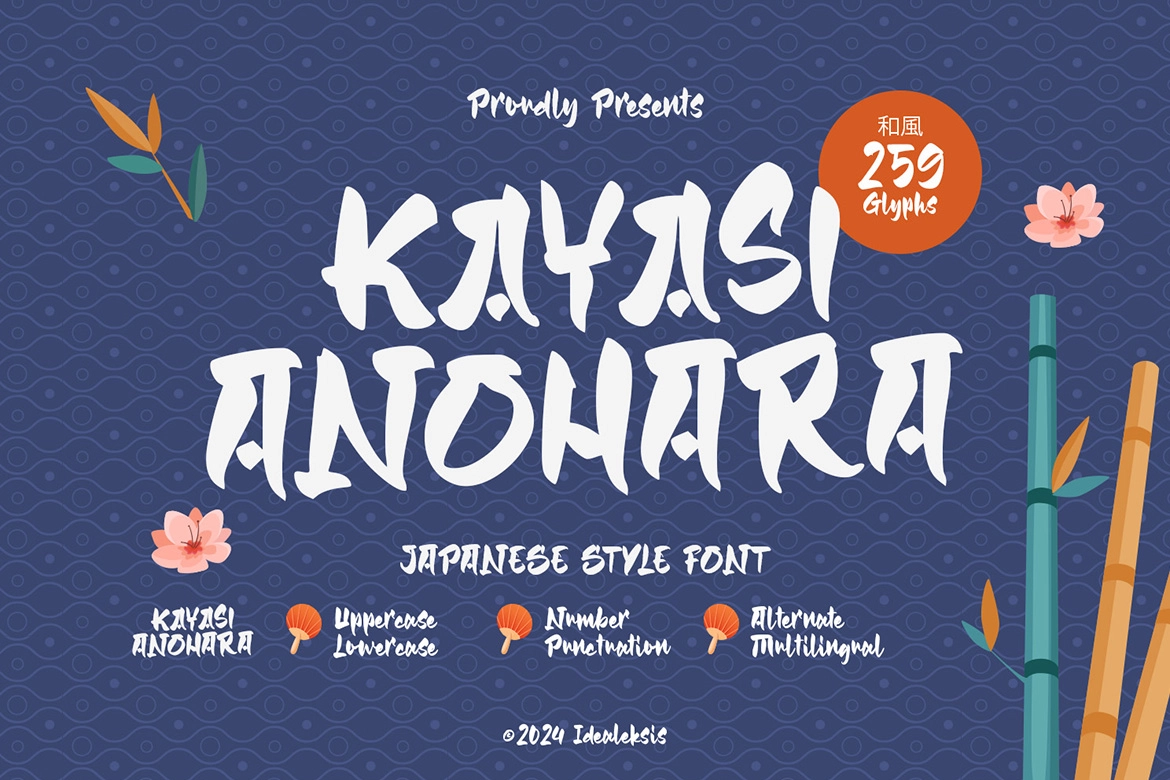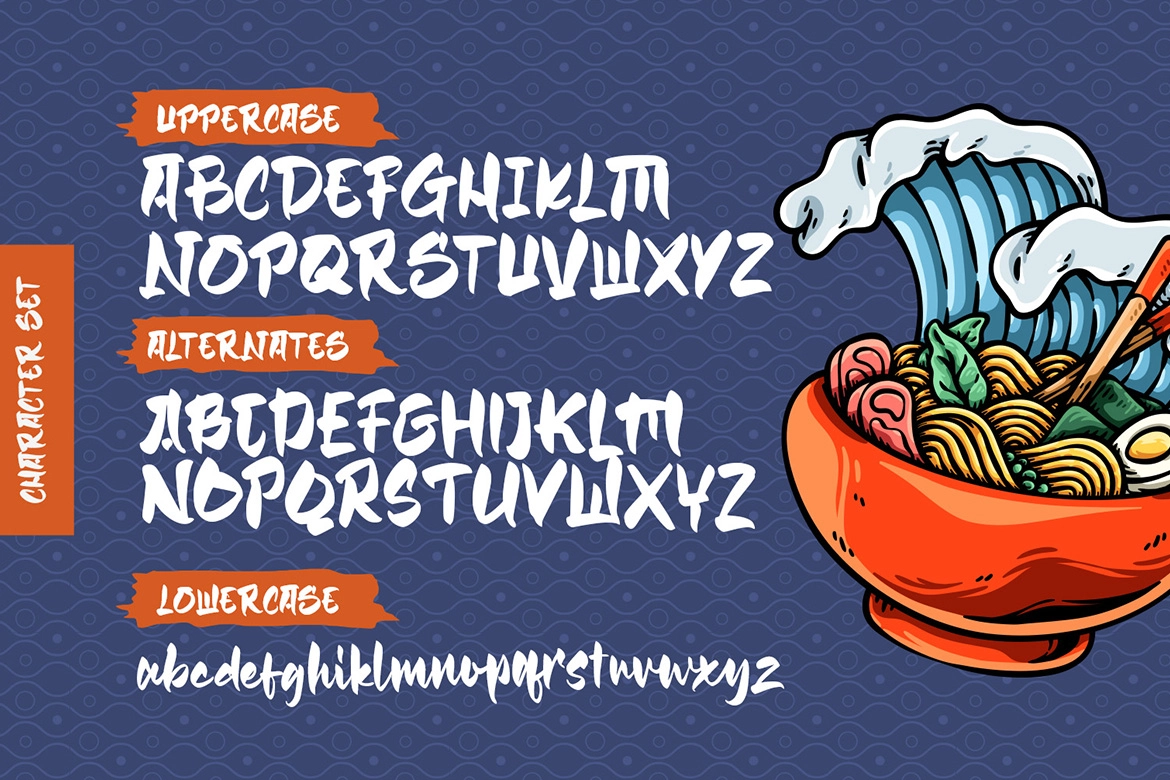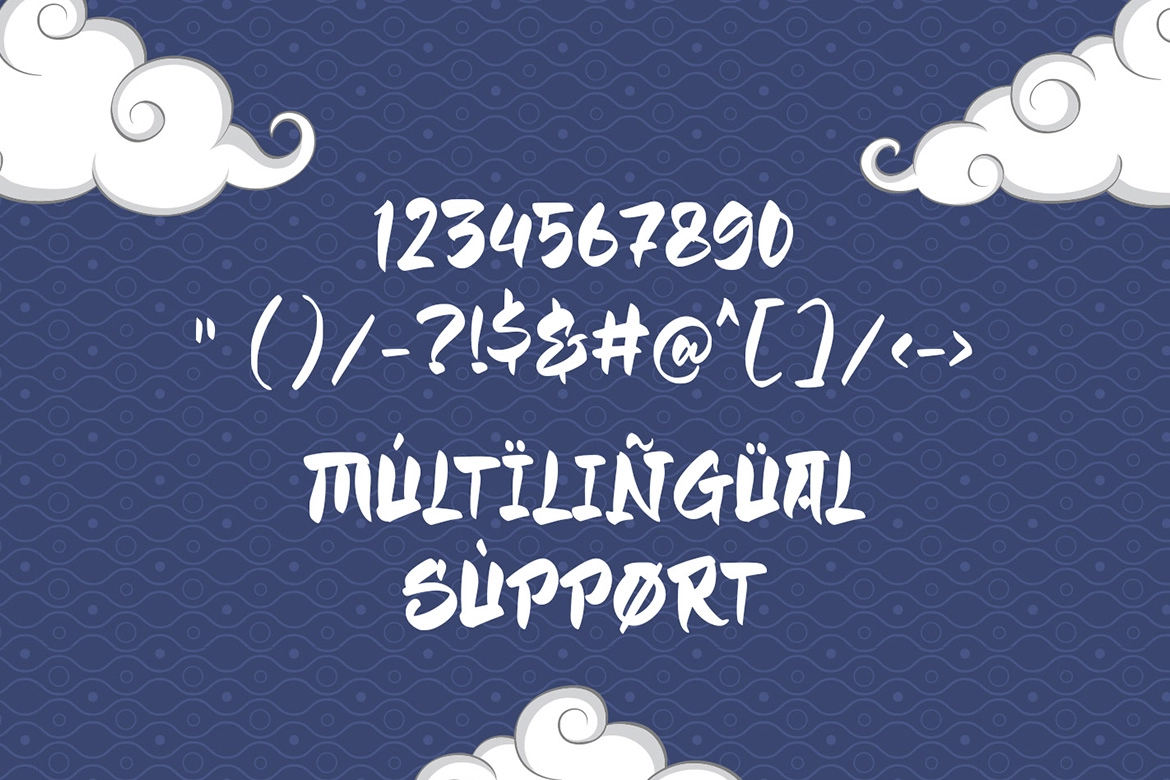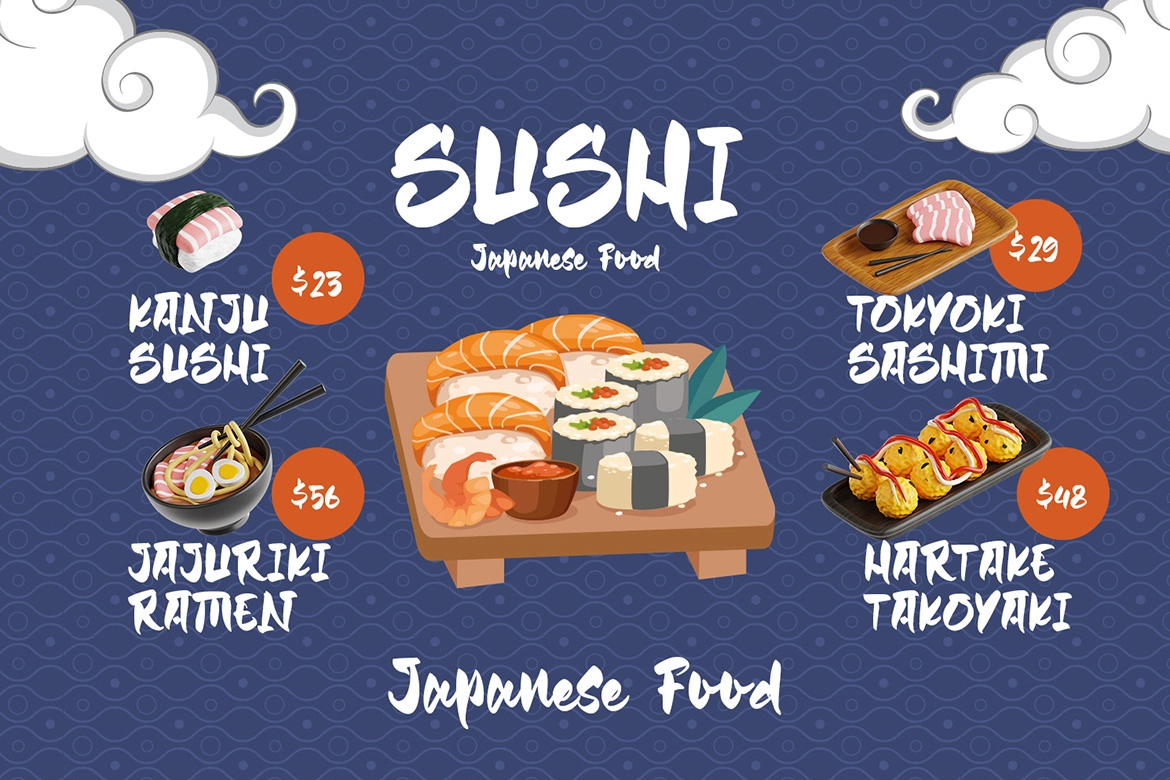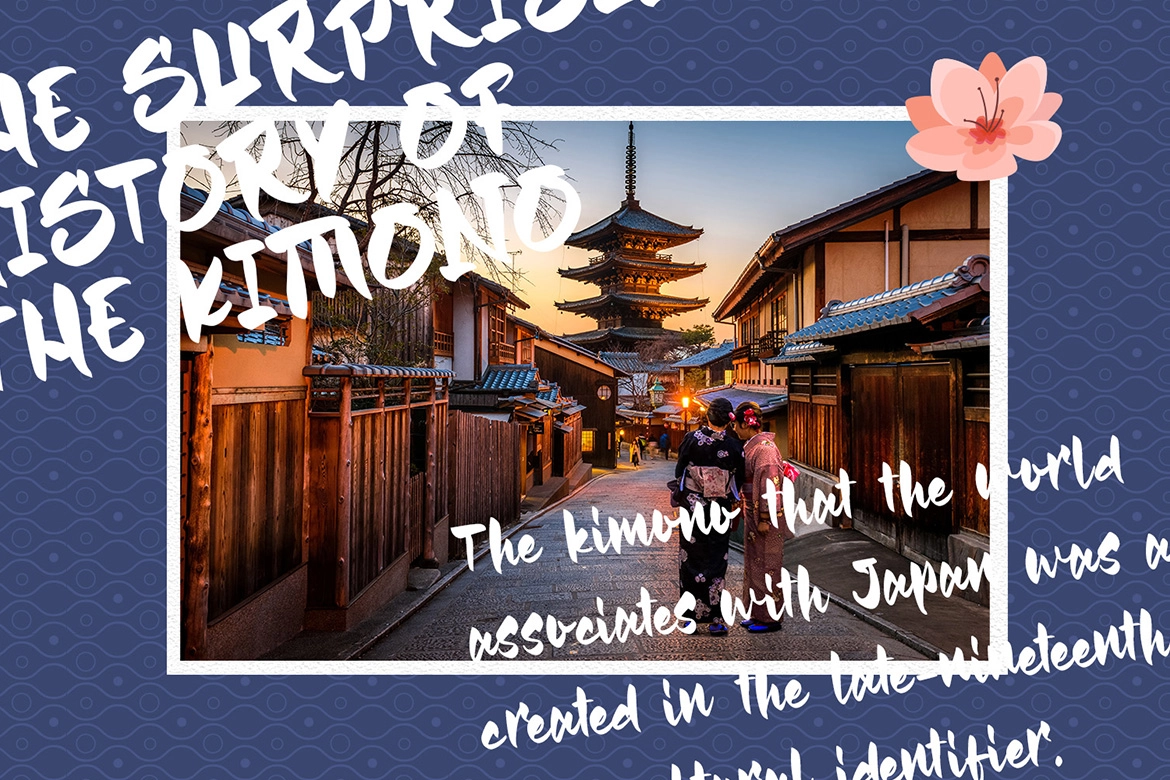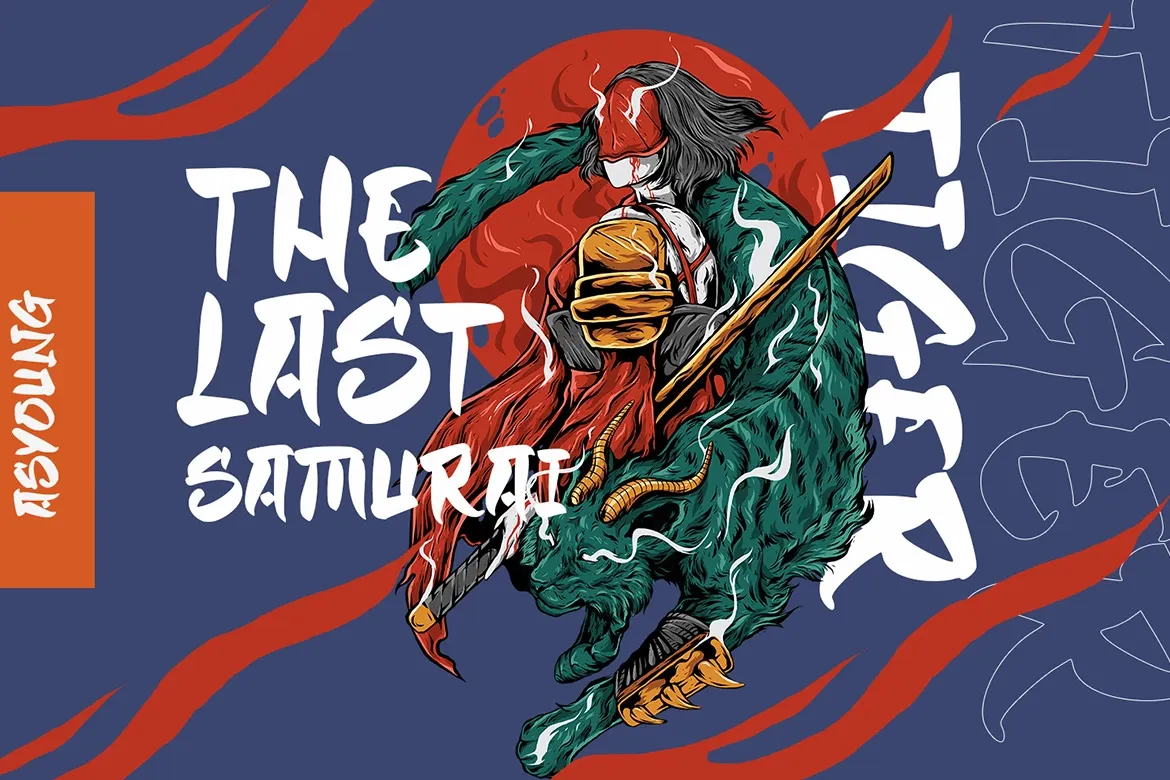
Kayasi Anohara – Japanese Style Display Font
Kayasi Anohara – Japanese Style Display Font is a bold and expressive display typeface inspired by traditional Japanese brush lettering and cultural aesthetics. Its strong strokes and dynamic forms capture the spirit of hand-painted calligraphy while maintaining a clean, modern structure suitable for contemporary design. The font delivers a striking visual presence that instantly evokes an authentic Asian-inspired atmosphere.
Designed for versatility and visual impact, Kayasi Anohara works perfectly for posters, branding, packaging, logos, restaurant menus, gaming titles, and cultural-themed design projects. Its distinctive character shapes help create memorable compositions while maintaining good readability in large headlines and display layouts.
• Uppercase & Lowercase Characters
• Numerals
• Punctuation Marks